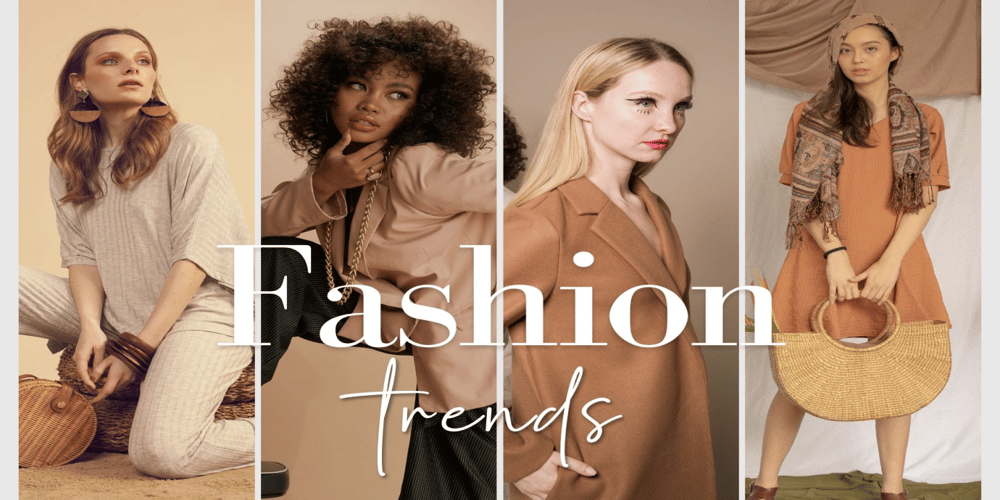
Escapist Font Family was designed by Jim Parkinson and published by Adita Fonts. Escapist contains 1 styles and family package options. Escapist is a handwritten script font that offers an elegant and personal touch to every character. Inspired by handcrafted strokes, this font presents a natural handwritten feel that is both warm and inviting. Each letter showcases uniqueness in every curve and stroke, creating a relaxed yet refined atmosphere. Ideal for design projects seeking a personal touch, such as wedding invitations, greeting cards, brand logos, and other design elements requiring a warm and elegant ambiance. “Escapist” is the perfect choice for anyone looking to infuse a human touch into their designs using this beautiful handwritten font.